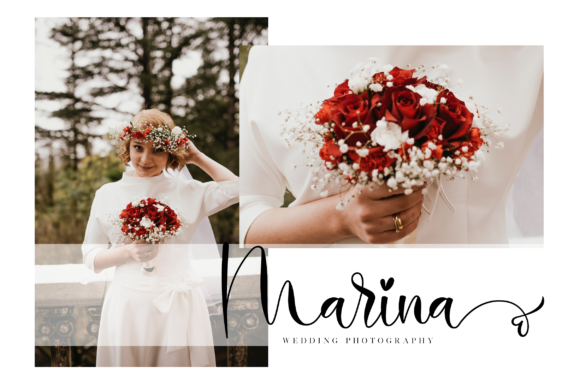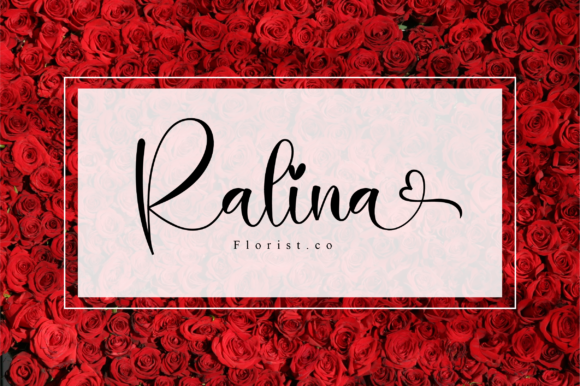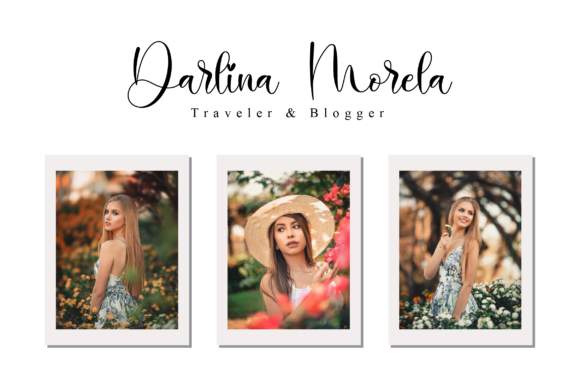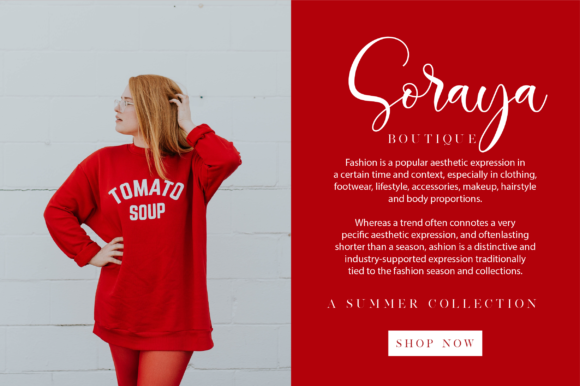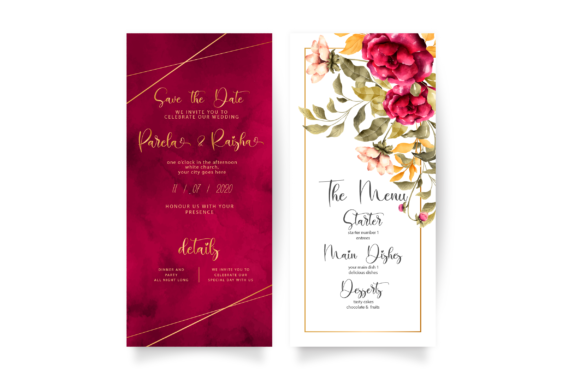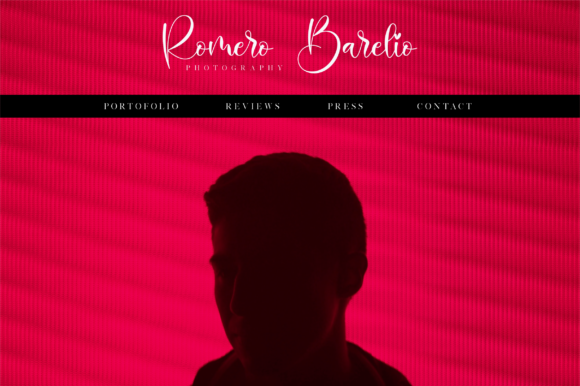
Introducing Balimora Script Font: Elevate Your Designs with Elegance and Sophistication
In the world of typography, a font can make or break a design. For designers and crafters seeking to add a touch of class and modernity to their projects, the Balimora Script Font is an exceptional choice. This beautifully crafted script font boasts an elegant and sophisticated look, perfect for a wide range of applications, from logos and branding to invitations, stationery, wedding designs, social media posts, and beyond.
The Beauty of Balimora Script Font
Balimora is an incredibly beautiful script font that exudes luxury and refinement. Its flowing lines and curves create a sense of movement and fluidity, making it ideal for designs that require a touch of dynamism. The font’s classy and modern aesthetic ensures that it can be used in various contexts, from high-end branding to creative projects.
Key Features of Balimora Script Font
- Elegant and Sophisticated: Balimora’s script font has an undeniable elegance, making it perfect for designs that require a touch of sophistication.
- Classy and Modern: The font’s modern look ensures that it can be used in a variety of contexts, from traditional to contemporary designs.
- Versatile: Balimora can be used for a wide range of applications, including logos, branding, invitations, stationery, wedding designs, social media posts, and more.
- Easy to Read: Despite its elegant and cursive nature, Balimora is easy to read, making it perfect for body text and headlines.
Uses of Balimora Script Font
Balimora’s versatility makes it an excellent choice for various design projects. Here are some of the ways you can use this beautiful script font:
- Logos and Branding: Create a lasting impression with a custom logo or brand identity using Balimora.
- Invitations and Stationery: Add a touch of elegance to your invitations, greeting cards, and stationery with Balimora.
- Wedding Designs: Make your wedding designs, such as invitations, programs, and place cards, truly special with Balimora.
- Social Media Posts: Elevate your social media presence with stylish and sophisticated text using Balimora.
- Packaging and Advertising: Use Balimora to create eye-catching packaging and advertising materials that stand out.
Tips for Using Balimora Script Font
To get the most out of Balimora, here are some tips to keep in mind:
- Pair with Simple Fonts: Balance Balimora’s elegance with simple fonts for body text to create visual harmony.
- Experiment with Colors: Try different colors to find the perfect match for your design and brand.
- Play with Sizes: Use varying font sizes to create visual interest and hierarchy in your designs.
In conclusion, the Balimora Script Font is an exceptional choice for designers and crafters seeking to add a touch of elegance and sophistication to their projects. Its classy, modern, and versatile nature makes it perfect for a wide range of applications. With Balimora, you can elevate your designs and create stunning visual experiences that leave a lasting impression.